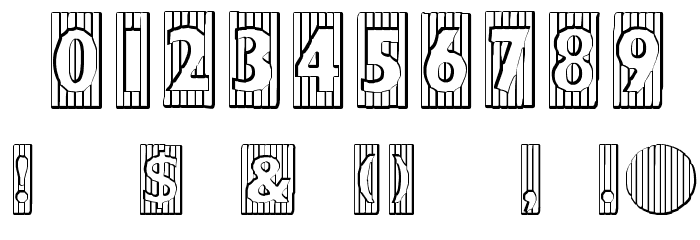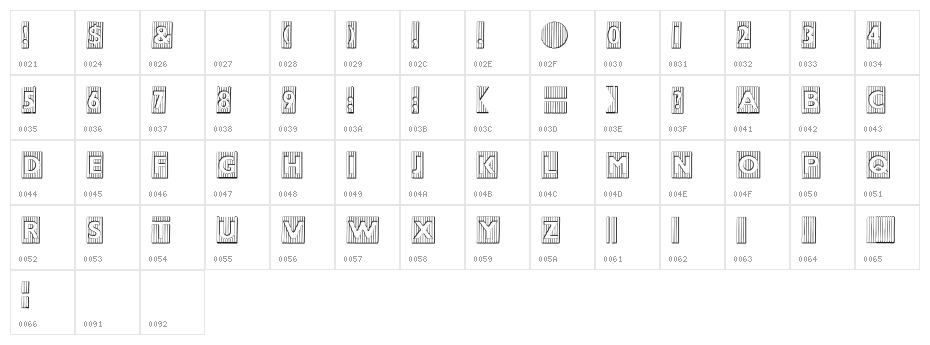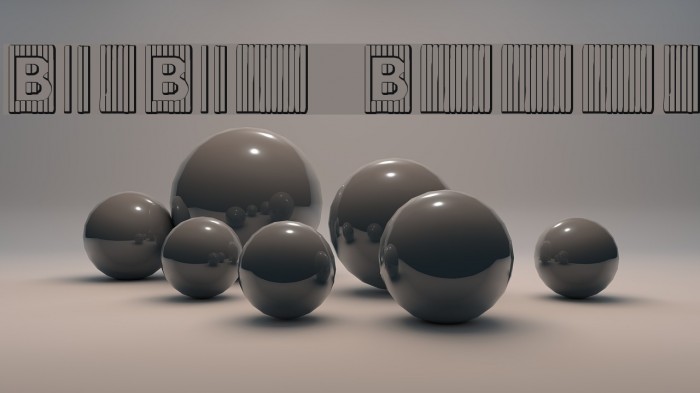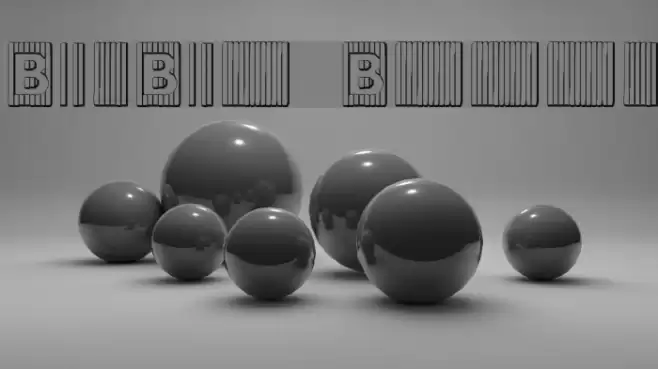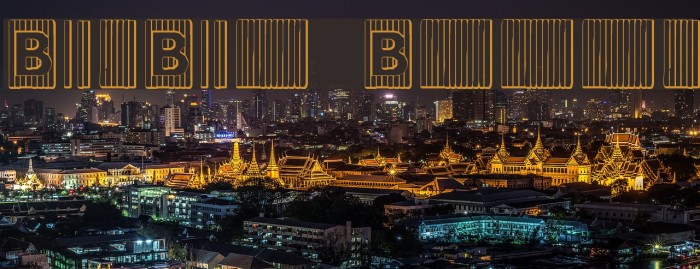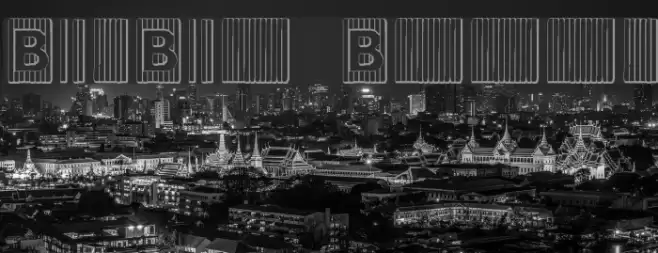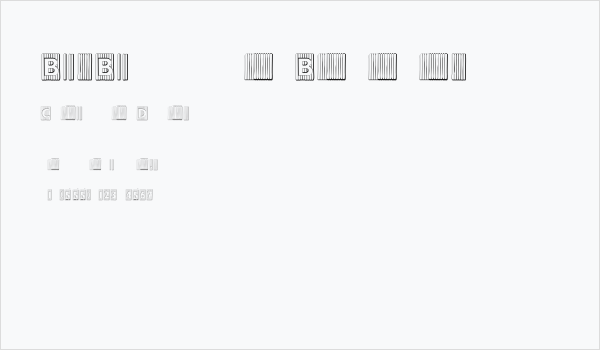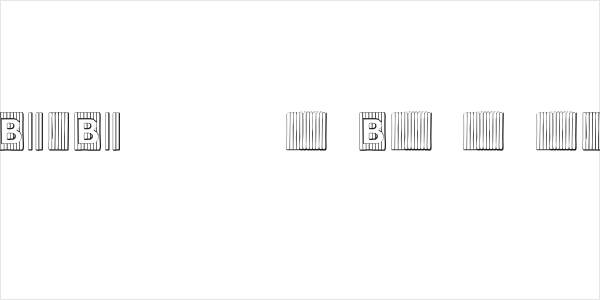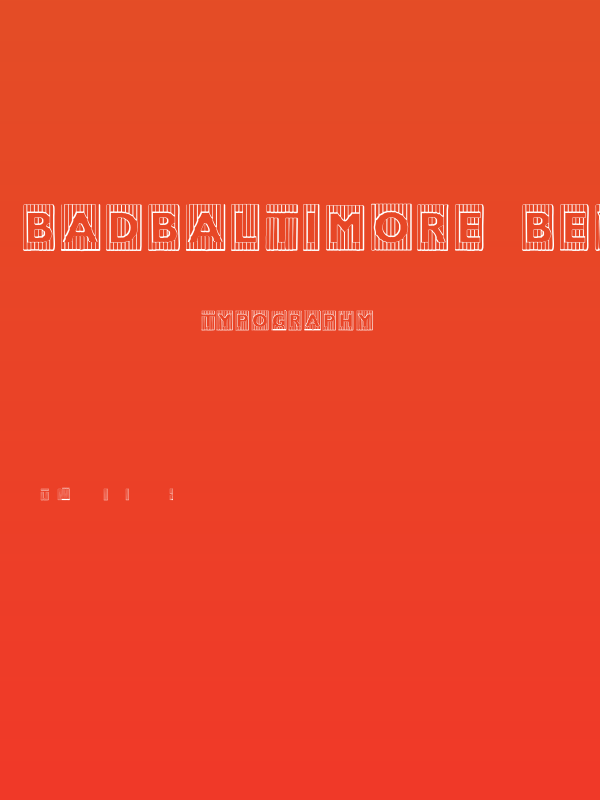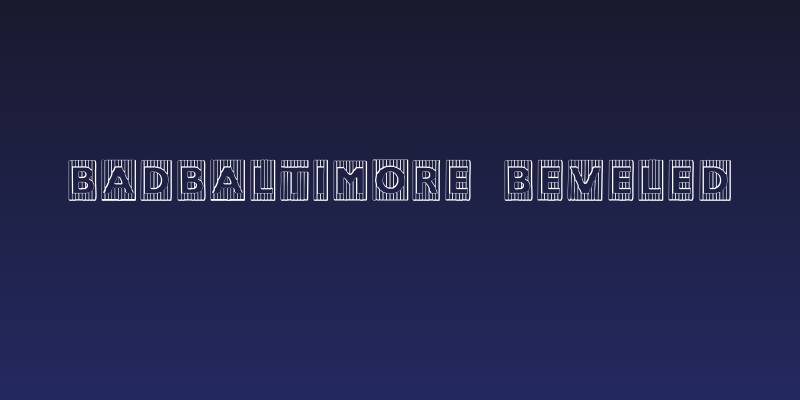
BadBaltimore Beveled Font
BadBaltimore Beveled Description
This font features a bold, decorative style with a unique beveled effect, giving each character a three-dimensional appearance. The letters are uppercase and have a striped pattern within the beveled edges, adding to the visual complexity. The numbers and special characters follow the same design, ensuring consistency across all glyphs. The font's distinct style makes it suitable for eye-catching designs where a strong visual impact is desired. Its geometric structure and intricate detailing make it stand out, ideal for projects that require a bold statement.